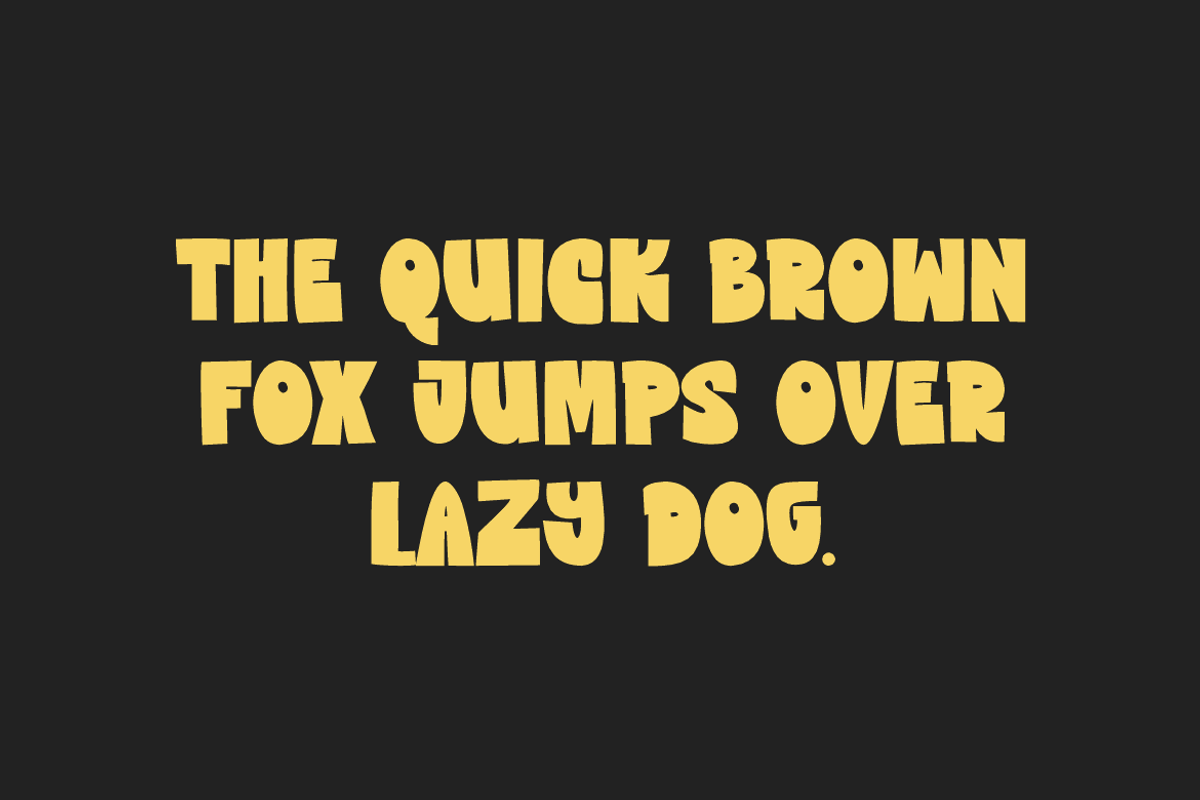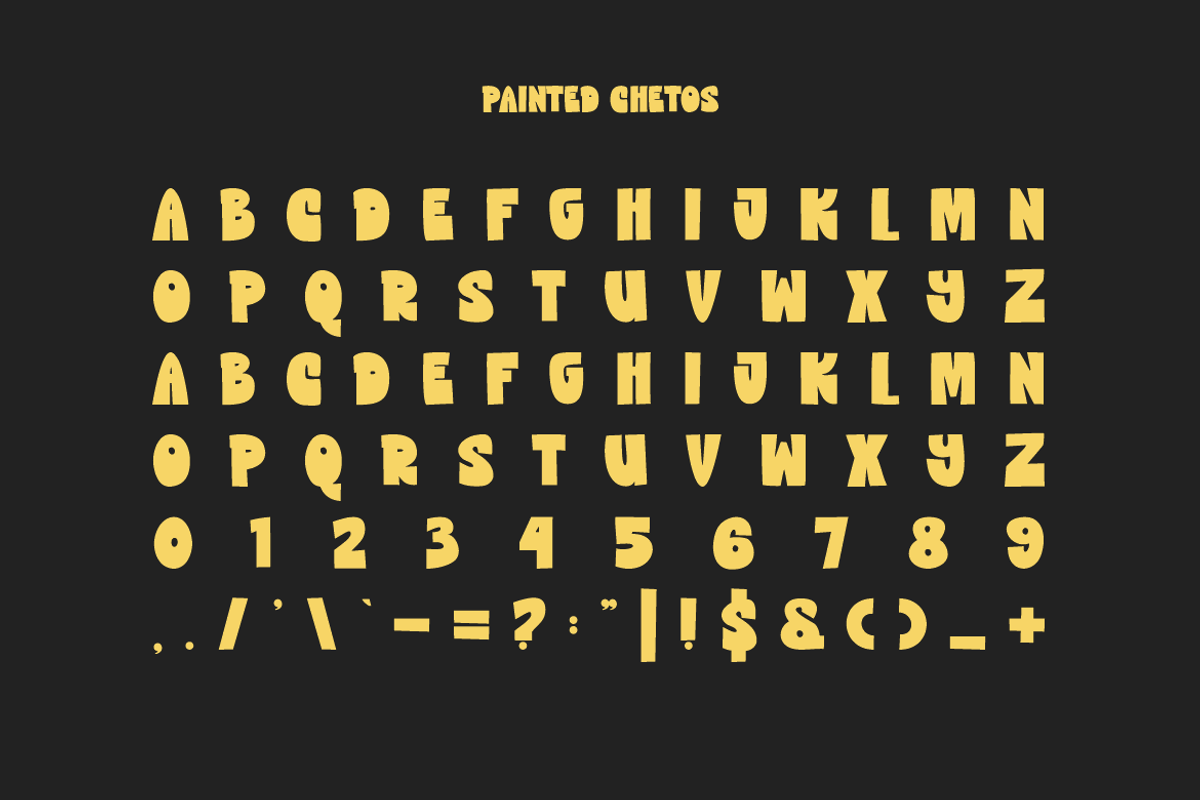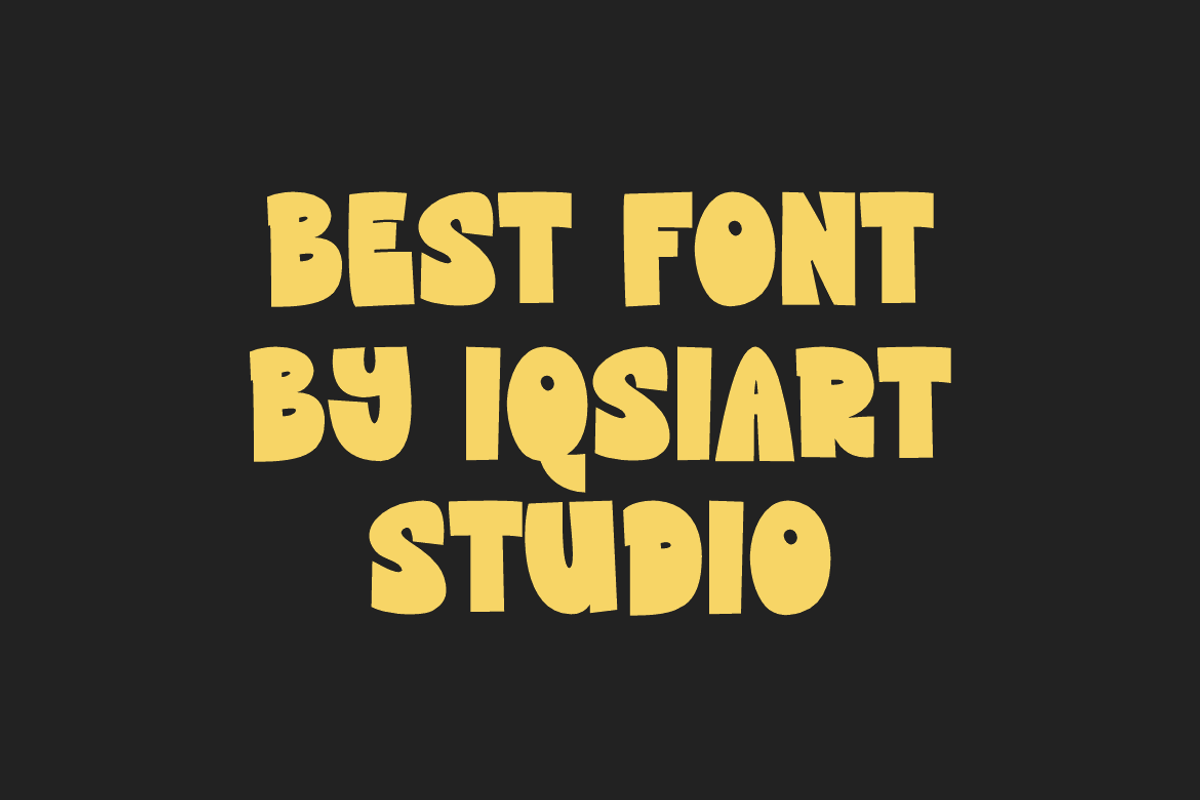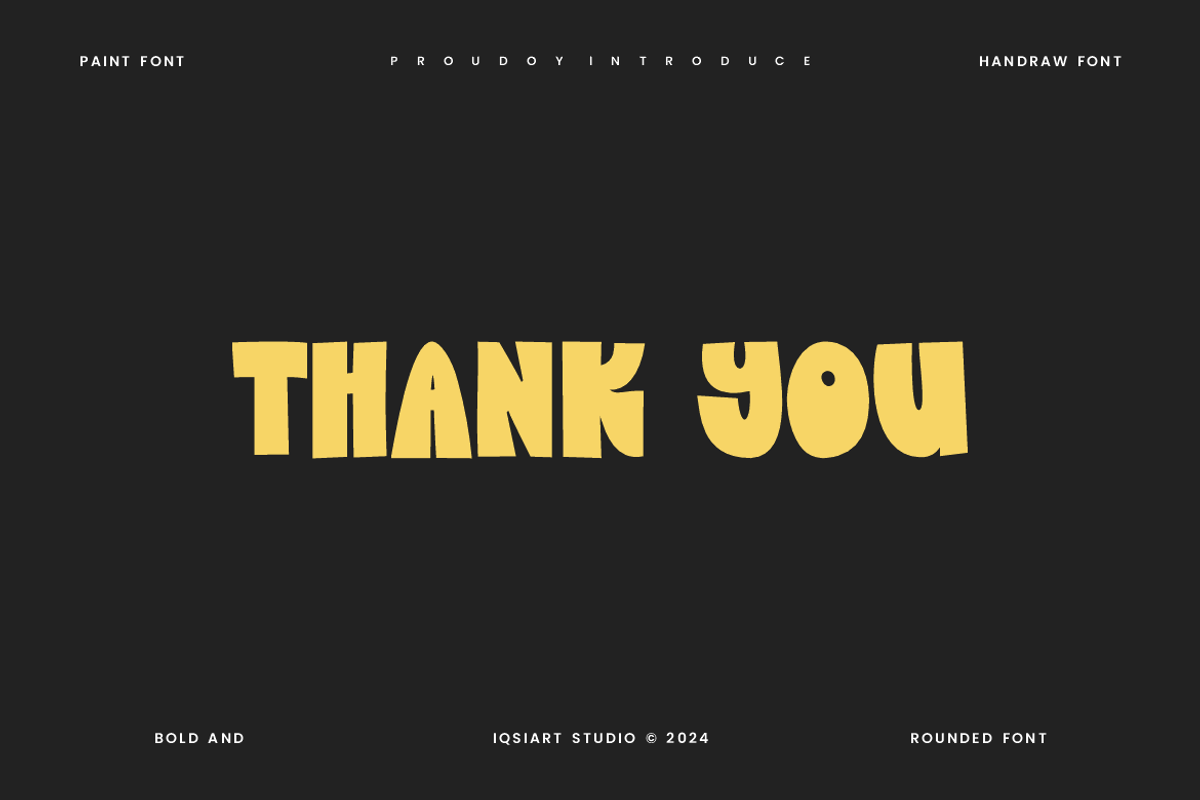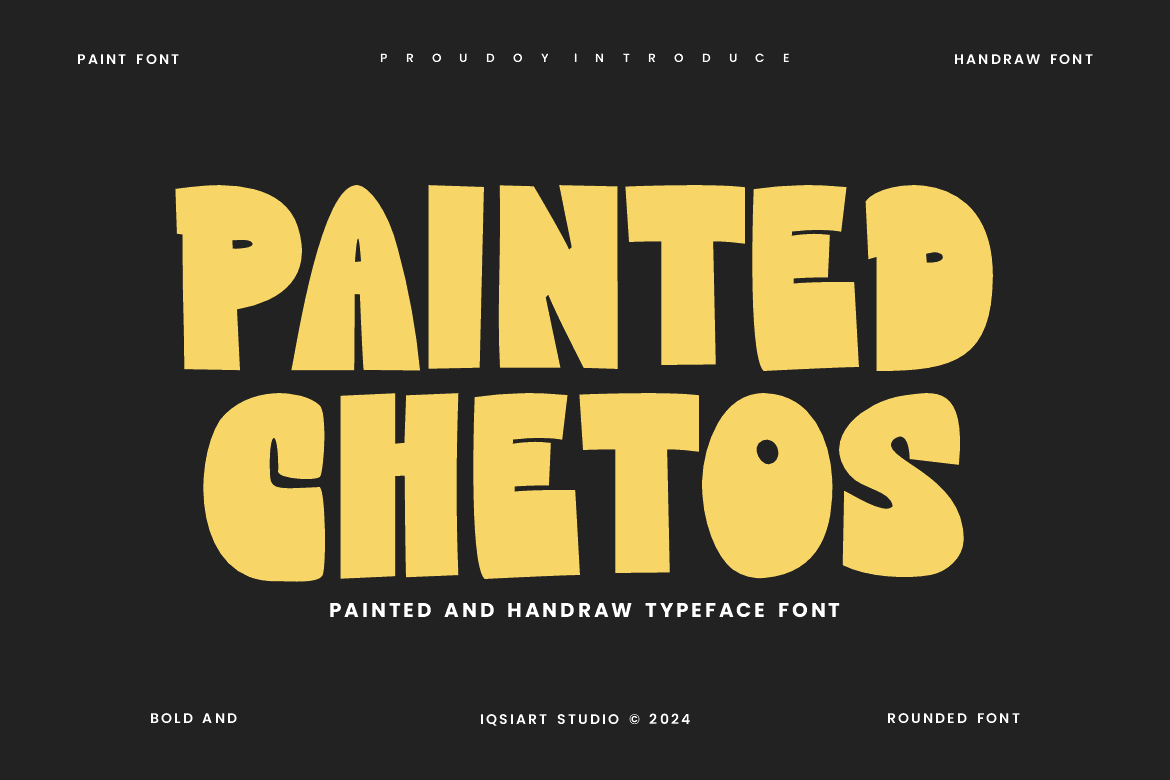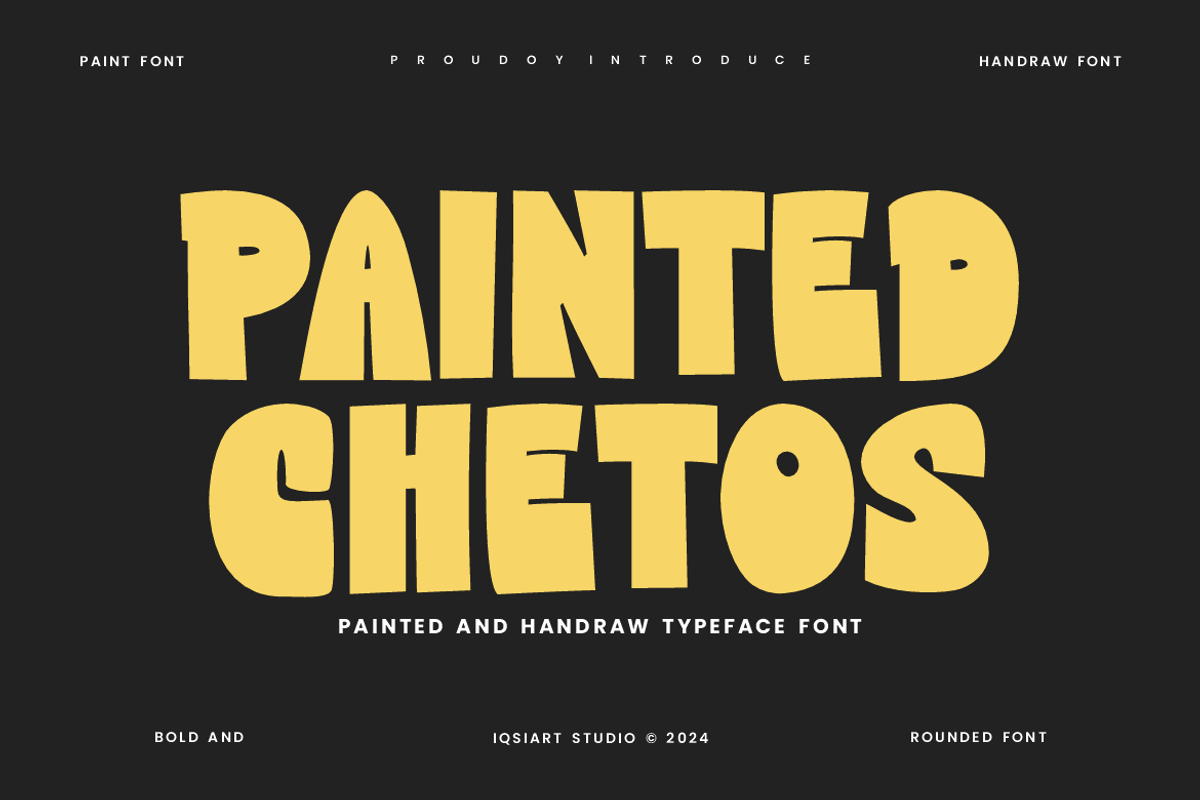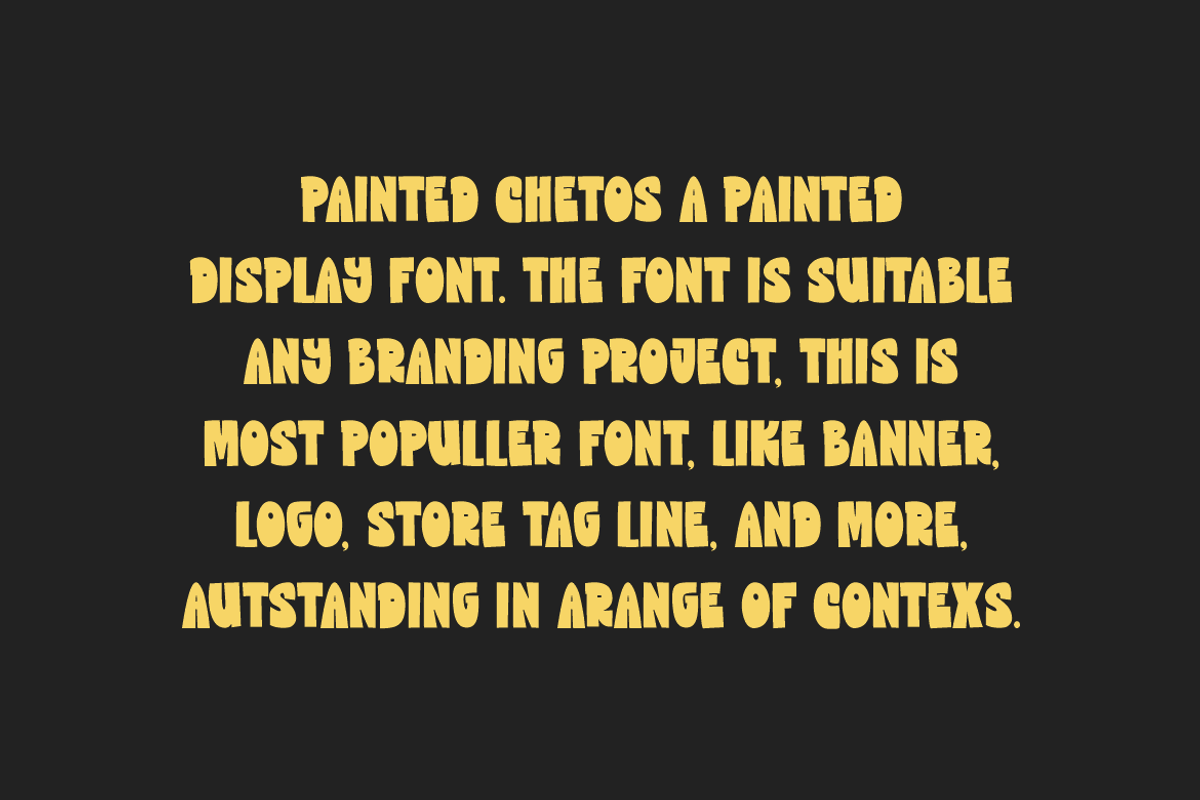
Painted Chetos - Paint Font
Painted Chetos Font is a best and authentic display font. This font can be used for your various needs. We provide various themes and font styles. visit our profile to get a wide variety of themes and different font styles you need.